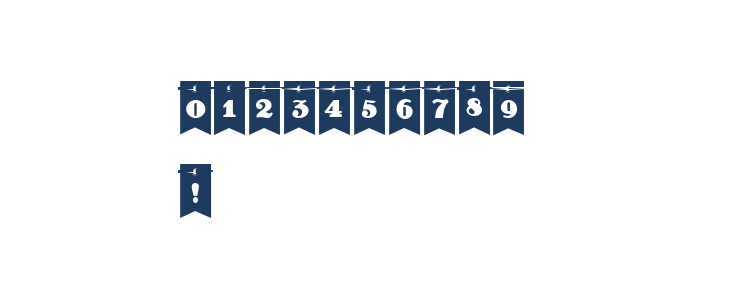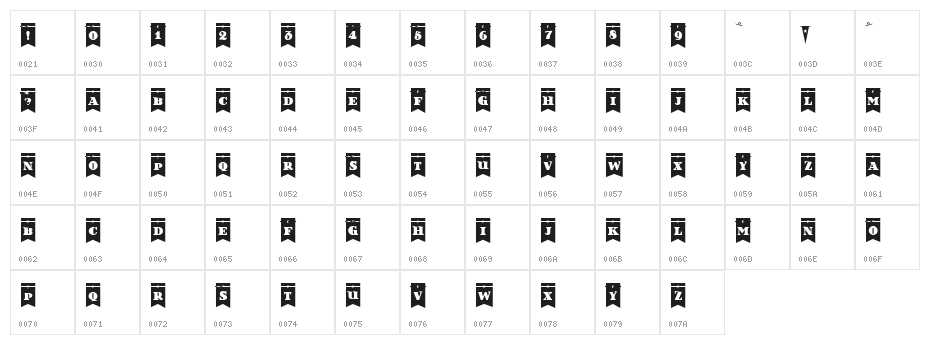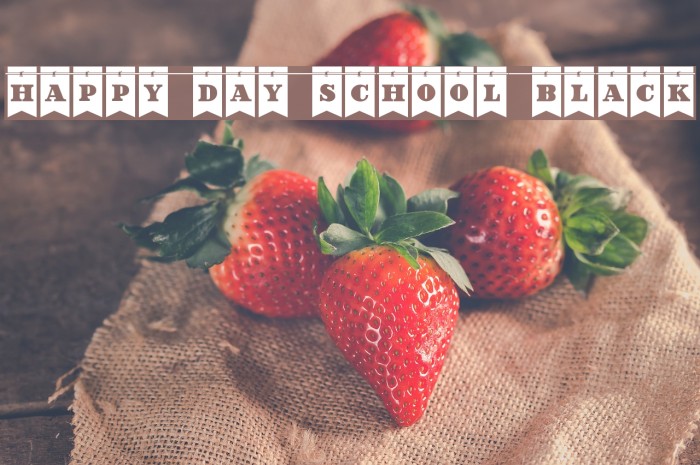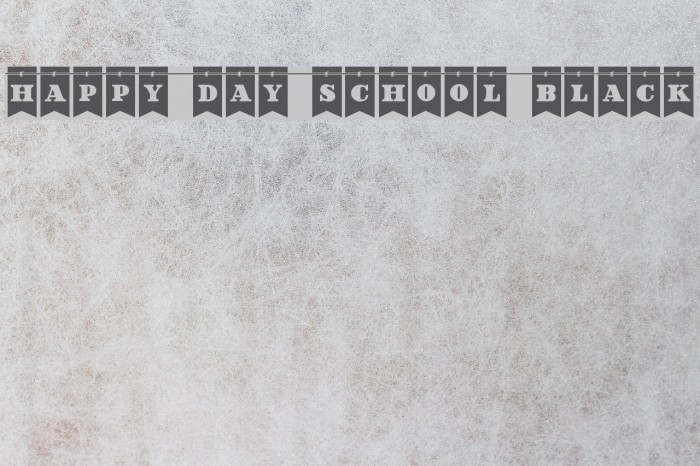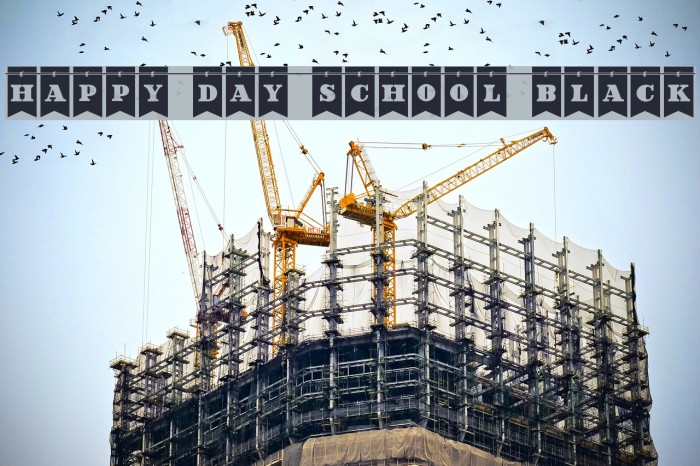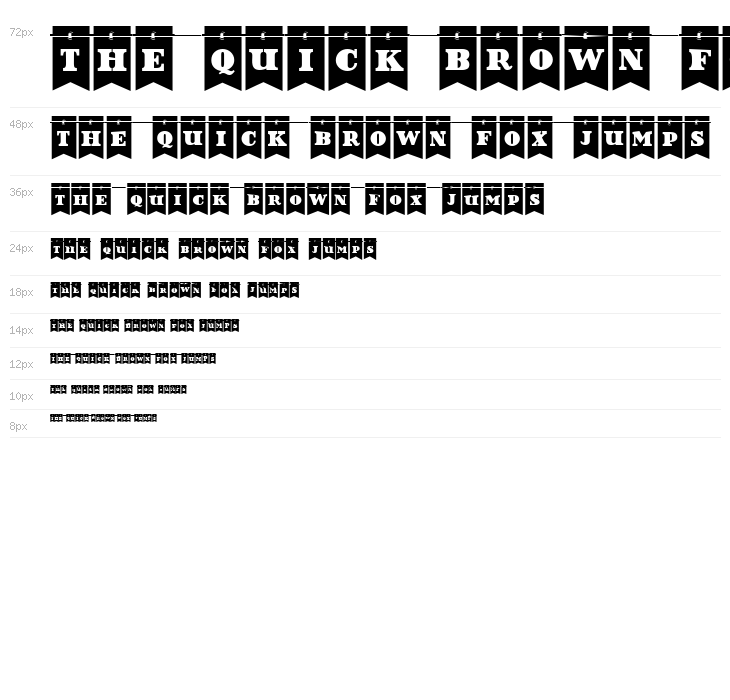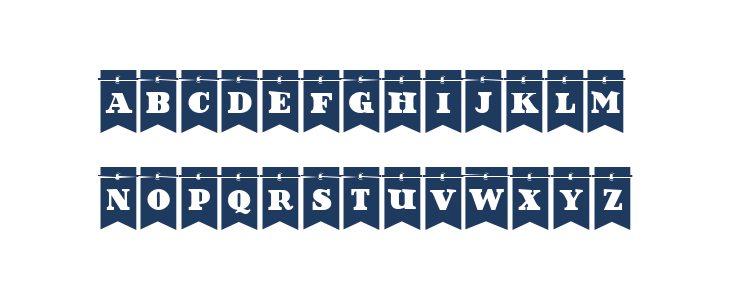
Happy Day School Black Font
Happy Day School Black Description
This font features bold, uppercase letters with a playful and decorative style, reminiscent of school banners or festive pennants. Each character is enclosed within a flag-like shape, adding a unique and eye-catching element to the design. The letters are well-defined with a strong presence, making them suitable for attention-grabbing headlines or titles. The numbers and special characters follow the same stylistic approach, ensuring consistency across all elements. The overall look is both fun and formal, making it versatile for various creative projects.
| Proposed Projects | Perfect for school event posters, party invitations, banners, and educational materials. |